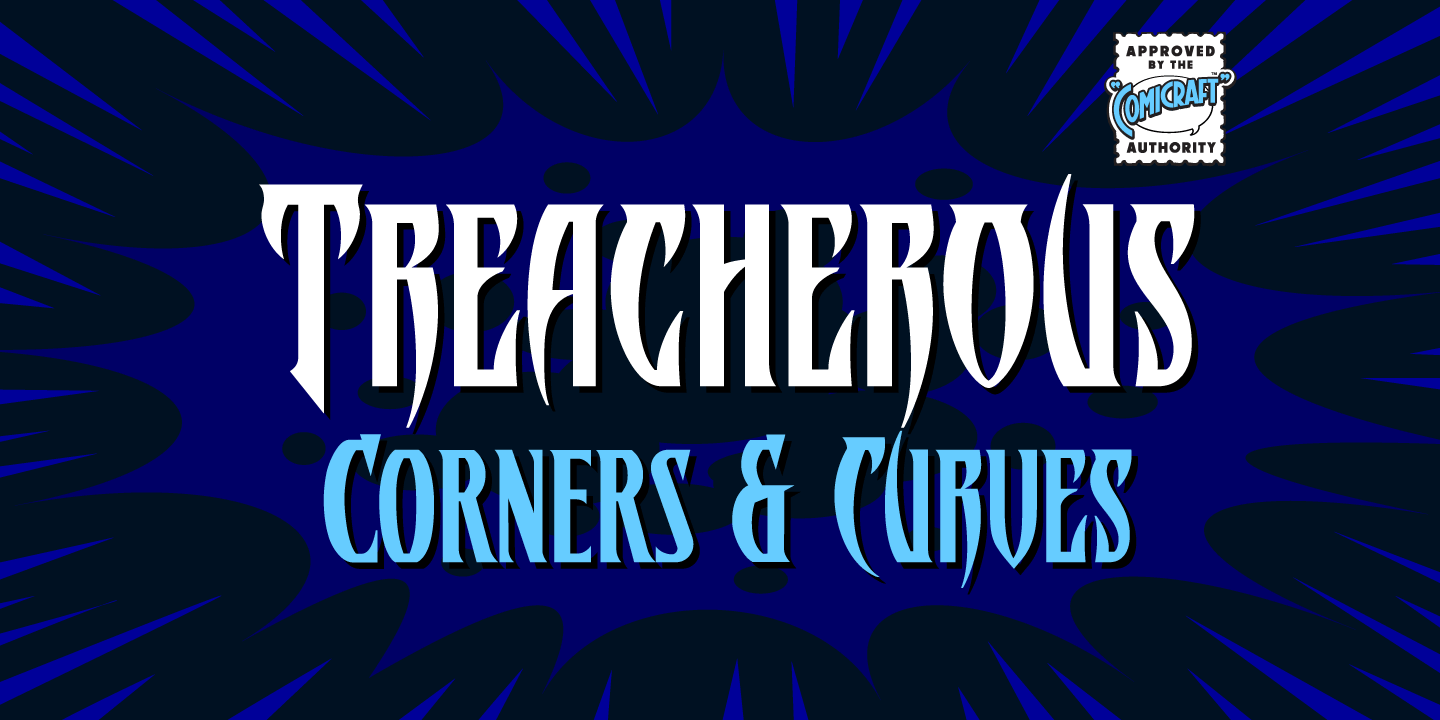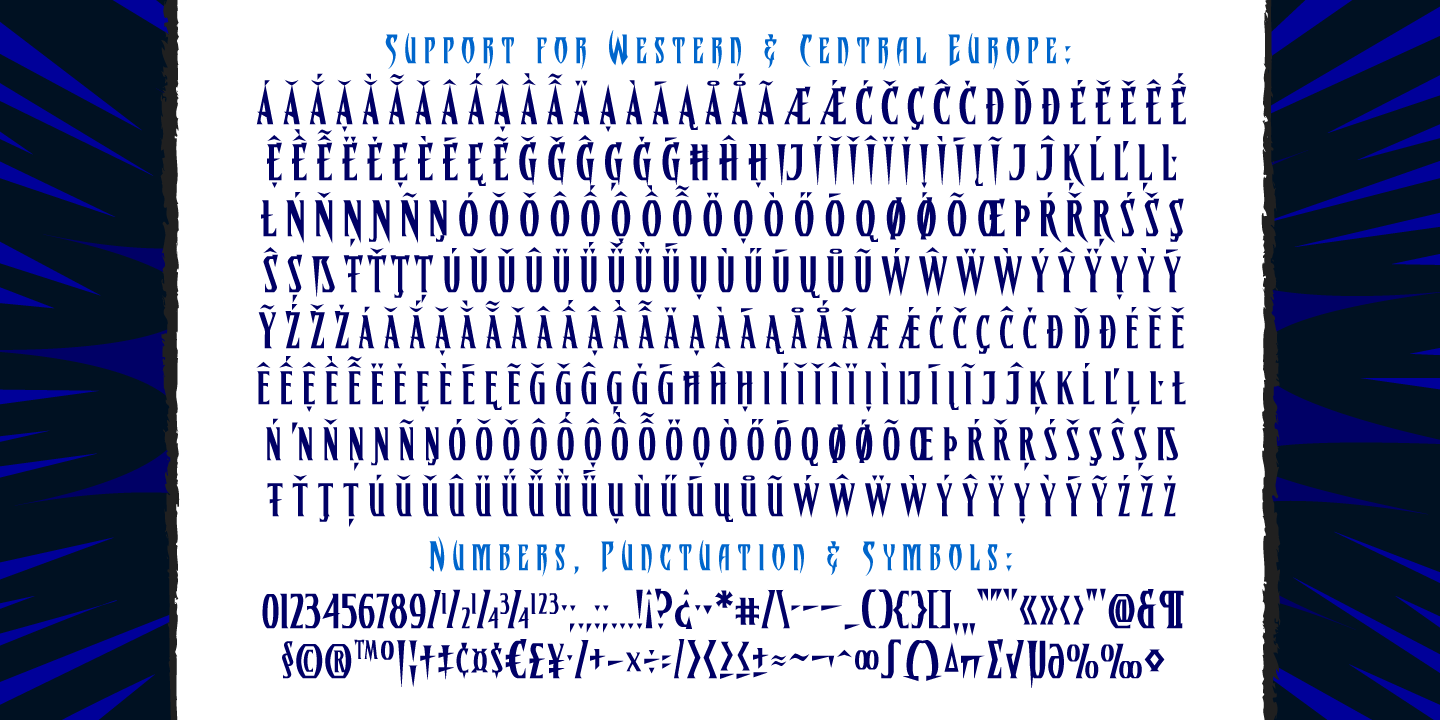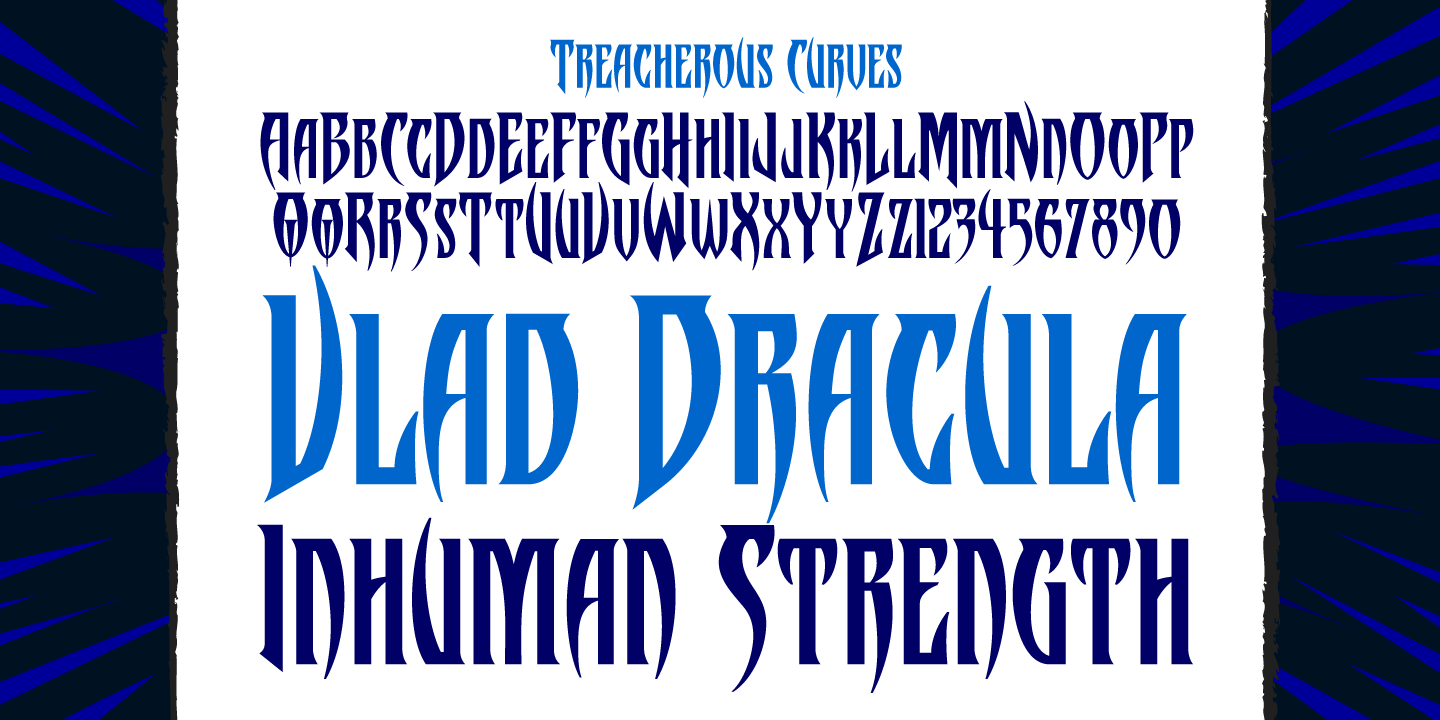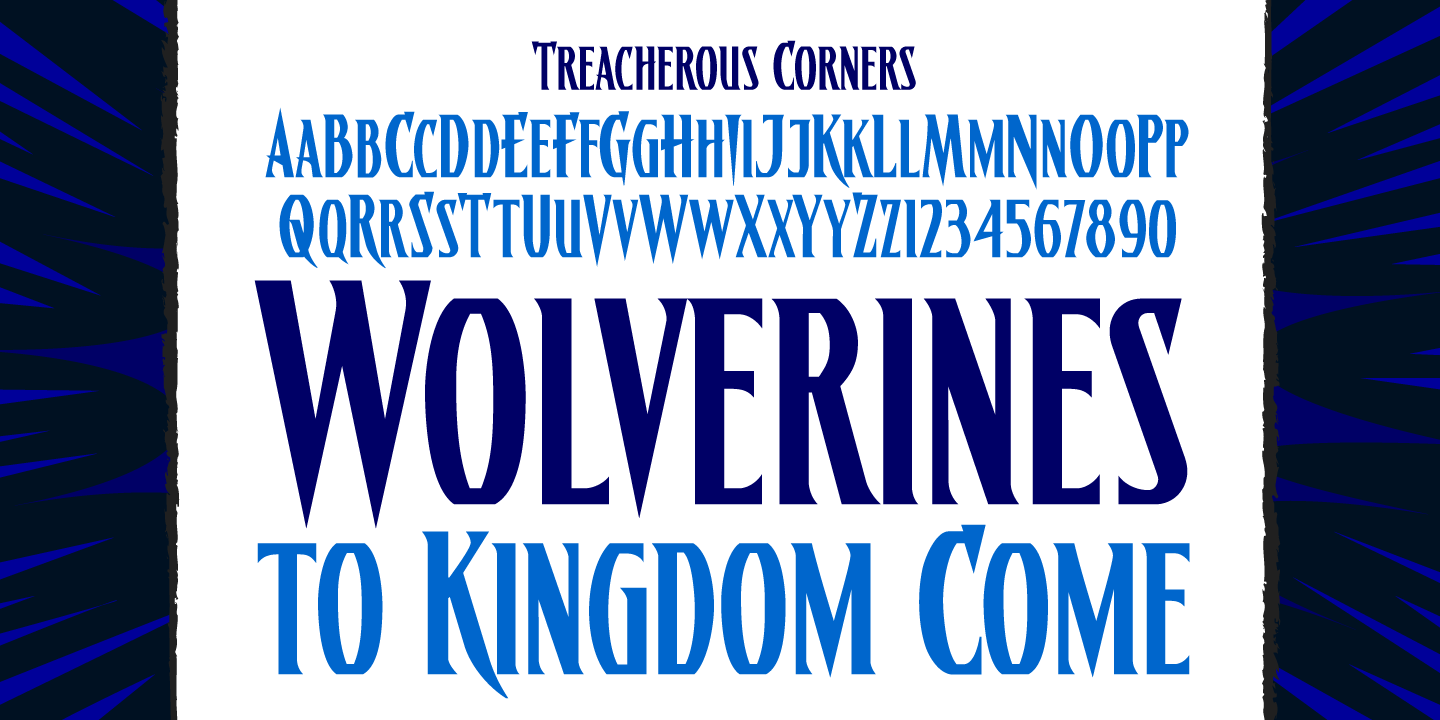
Treacherous
Font Family by Comicraft Fonts
Treacherous is a dramatic serif display family with a dark, theatrical presence. Its look is defined by angular forms, sharp edges, tall condensed proportions, and high-contrast styling, giving it a vintage-inspired voice that leans gothic, fantasy, and unmistakably decorative.
This family includes 2 styles—Treacherous Corners and Treacherous Curves—offering two distinct takes on the same intense visual mood. Whether you want a harder, more pointed feel or a slightly more flowing approach, both styles bring bold personality to headlines and other statement-making type.
A strong fit for posters, branding, packaging, title work, and other display uses, it suits projects that call for something stylized, narrow, and dramatic. Created by Comicraft Fonts, it’s especially well suited to designs with a gothic, retro, or Art Deco-inflected atmosphere.